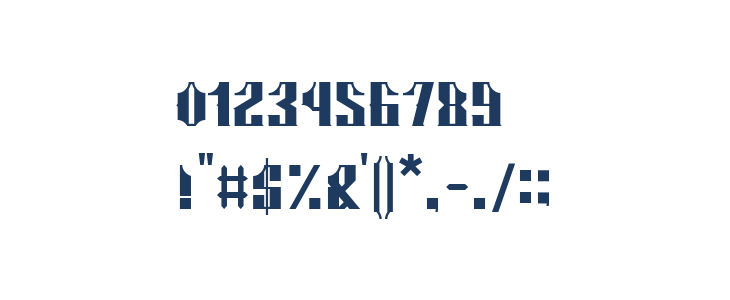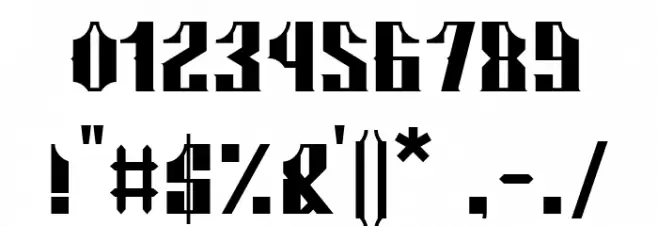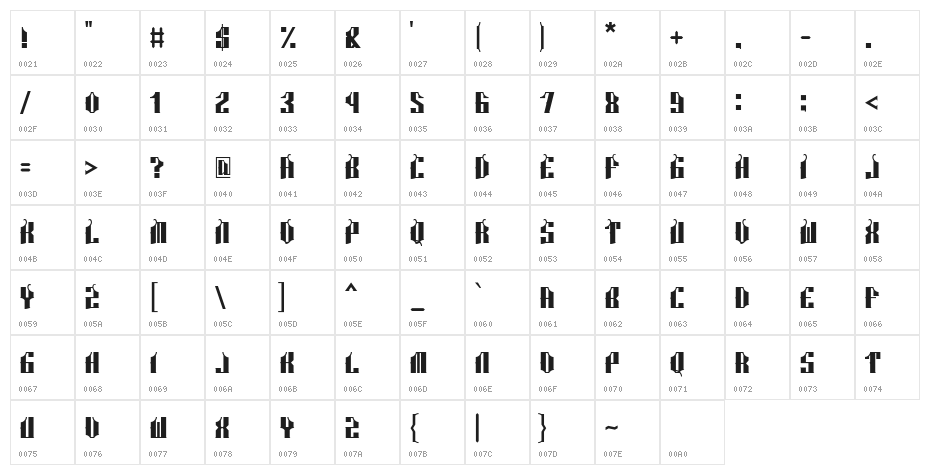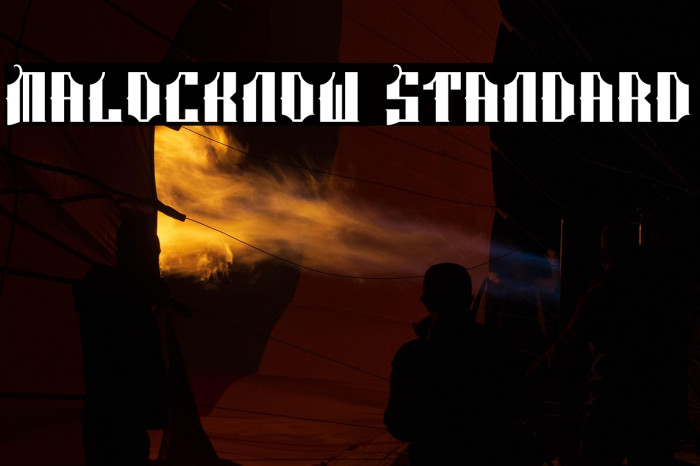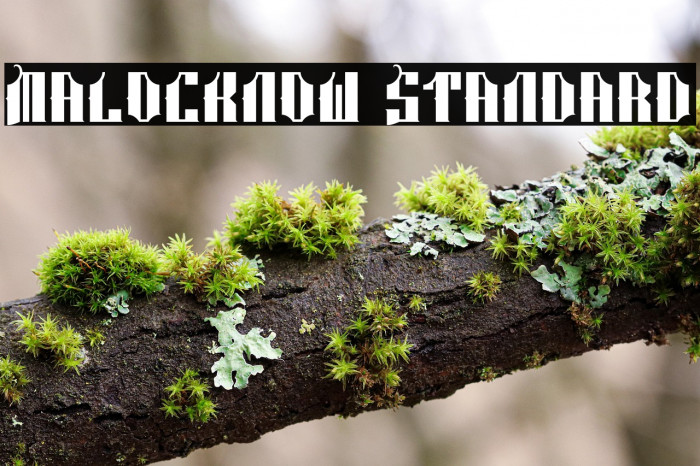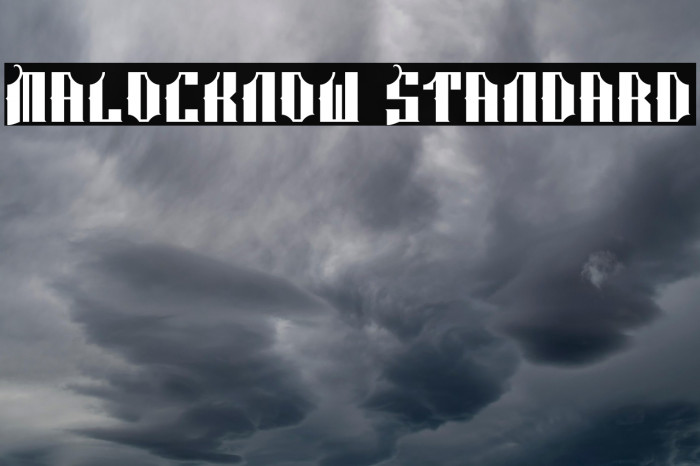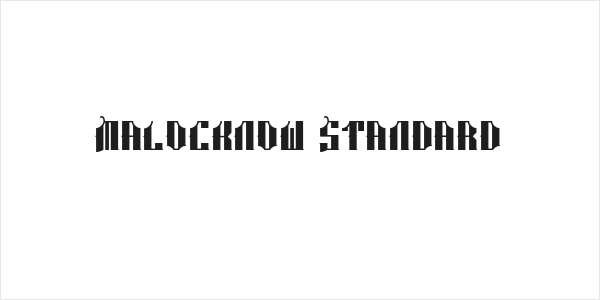
Malocknow Standard Font
Malocknow Standard Description
This font exhibits a bold and striking blackletter style, characterized by its sharp, angular lines and intricate details. The uppercase and lowercase letters maintain a consistent height, creating a uniform appearance. The numerals and special characters follow the same design principles, ensuring a cohesive look across all elements. The font's dramatic presence makes it ideal for projects that require a strong visual impact. Its historical and gothic influences are evident, making it suitable for themed designs that aim to evoke a sense of tradition or mystery.
A bold, blackletter-style font with sharp, angular lines and intricate details from Regular fonts.
- Proposed Projects: Ideal for posters, book covers, branding, and any design requiring a historical or gothic touch.
- Overall Style: Gothic, Historical
- Use Case: Headlines, Logos, Decorative elements